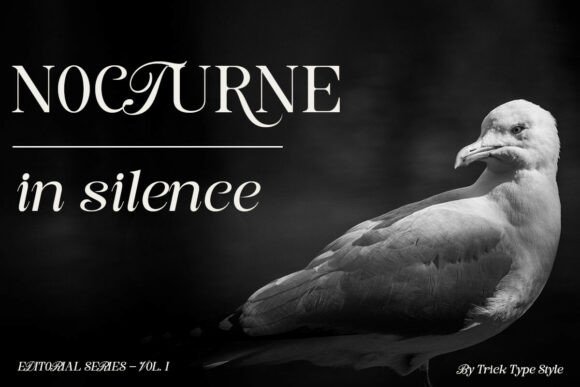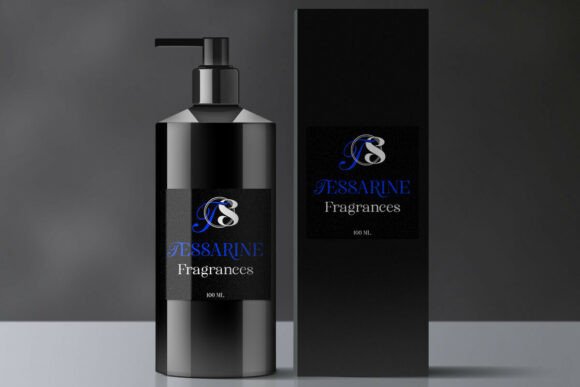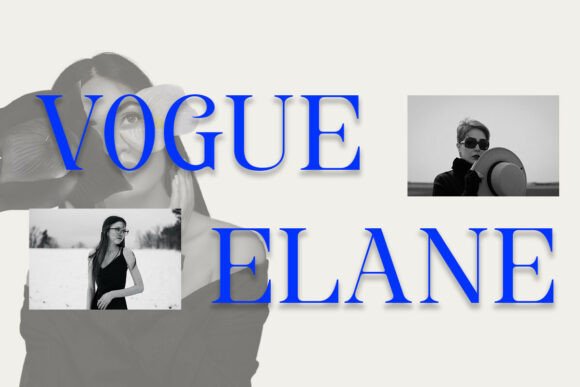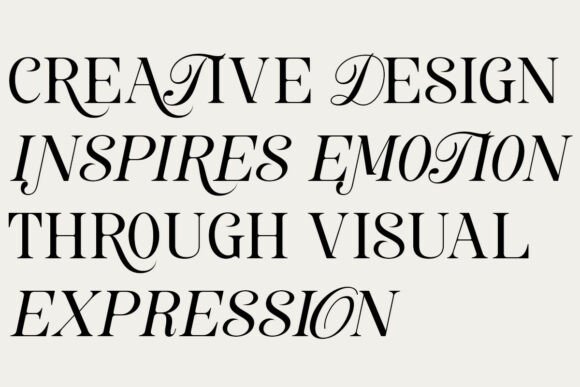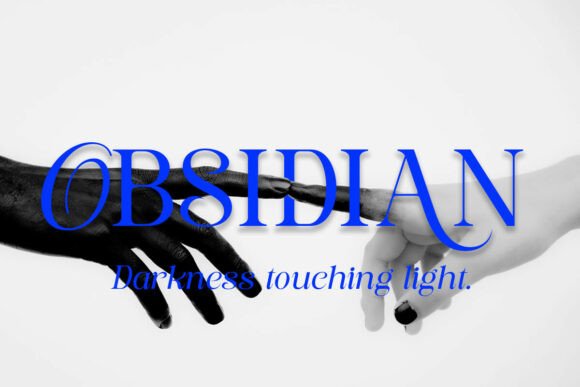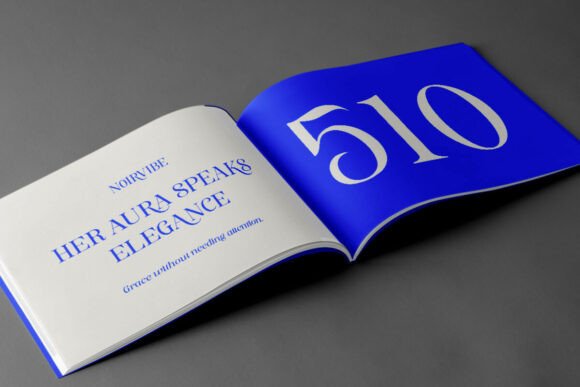
Introduction to Frontend Font
Frontend is a contemporary serif typeface designed to balance timeless elegance with modern sophistication.
Crafted with refined contrast, graceful curves, and clean details, Frontend delivers a luxurious editorial feel while maintaining excellent readability across both digital and print media This release includes carefully designed Regular and Italic styles, offering a versatile combination for branding, fashion editorials, magazine layouts, luxury packaging, visual identities, social media design, and modern typography projects.
Key Features of Frontend Font